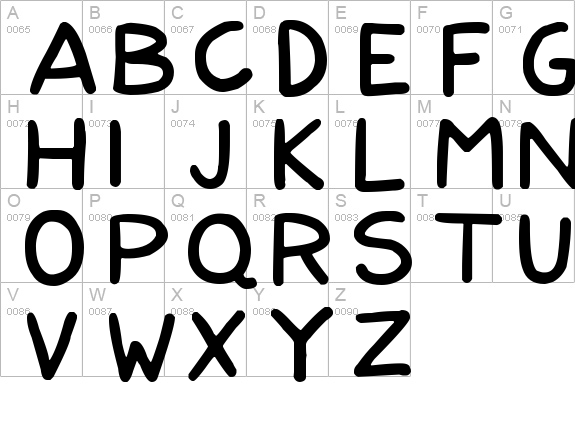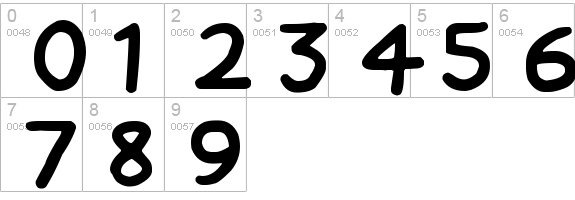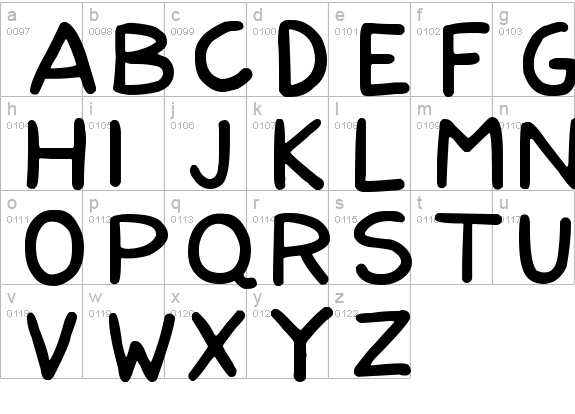
Nerdy Norms Font Details
Nerdy Norms is a free for personal use font in the Script > Handwritten category, designed by Darrell Flood. It has been downloaded 215 times and is available for Windows, Mac and Linux.
Nerdy Norms font is a quirky and playful typeface that exudes a nerdy charm perfect for adding a touch of fun to your designs. With its clean lines and rounded edges, this font is both modern and approachable, making it ideal for a wide range of projects. Whether you're designing a poster, website, or social media graphics, Nerdy Norms will bring a sense of whimsy to your work.